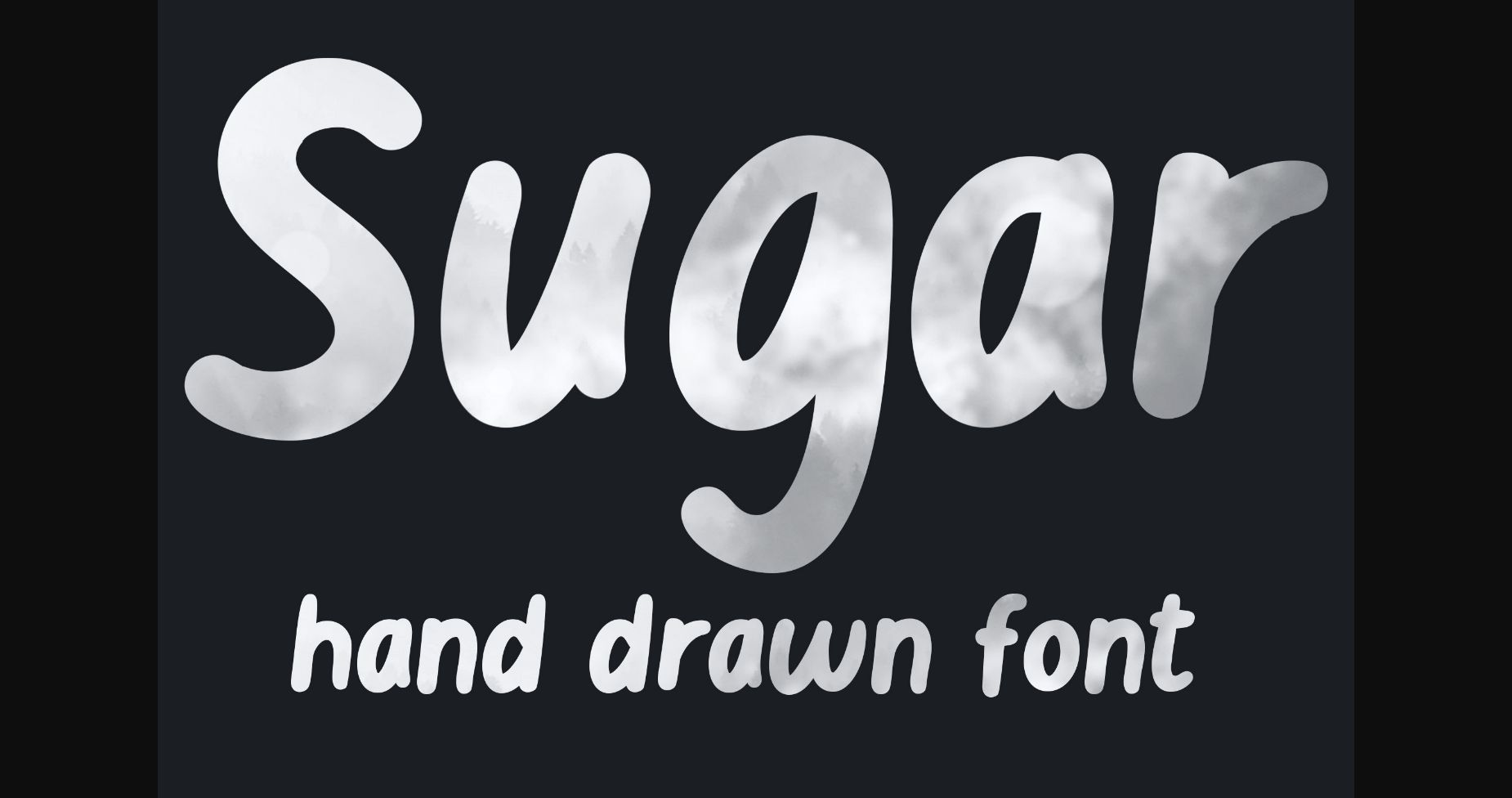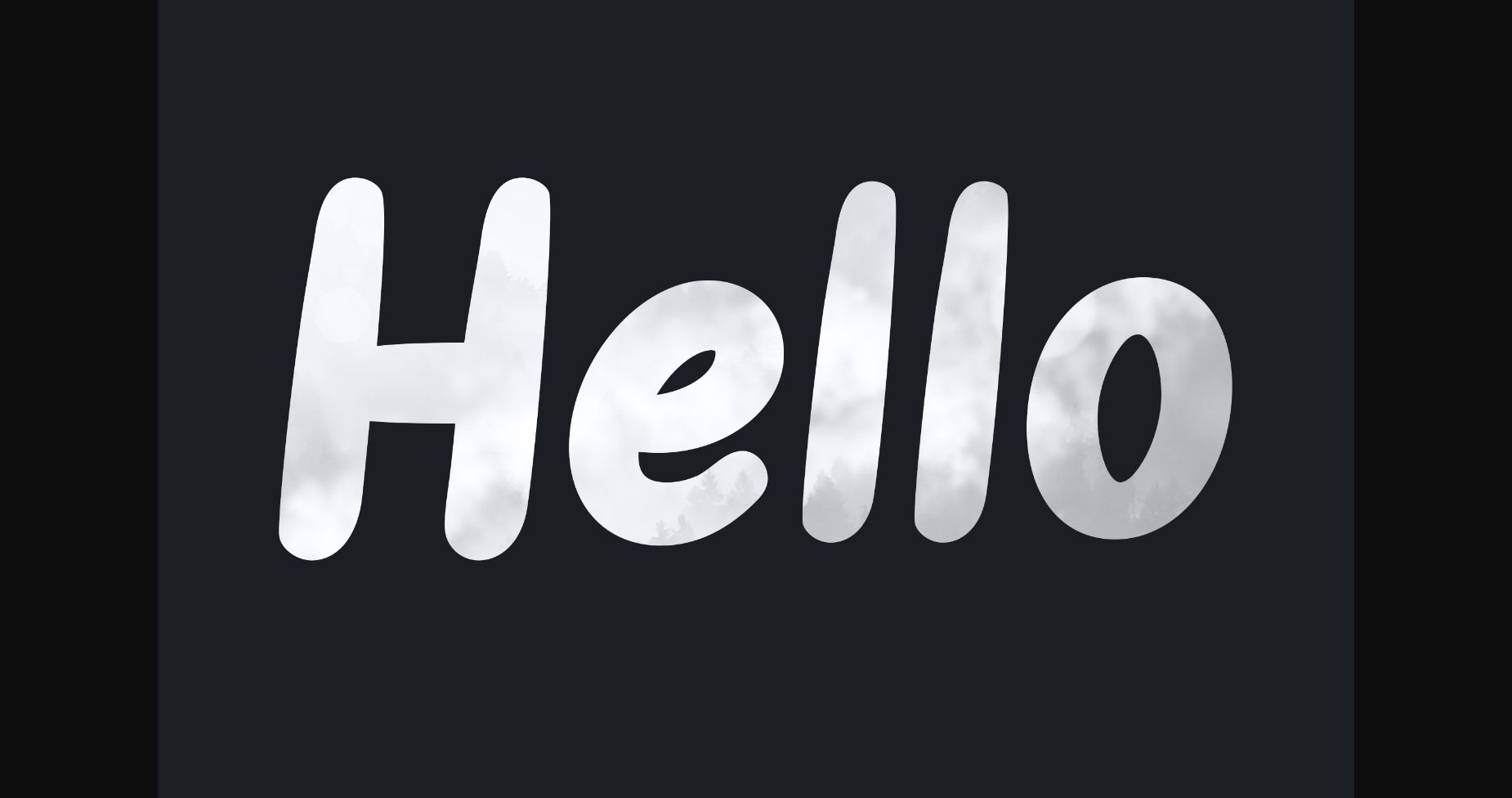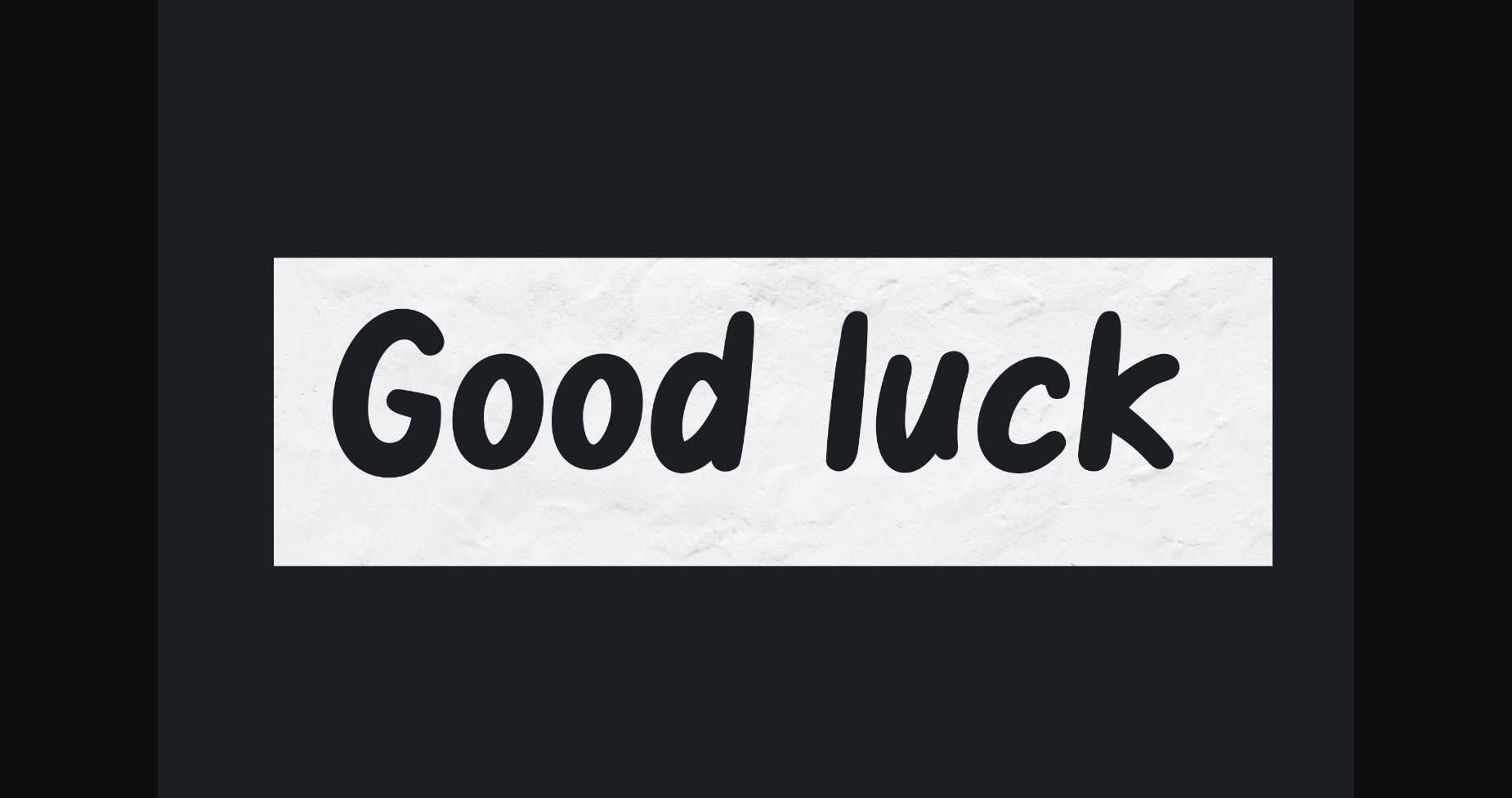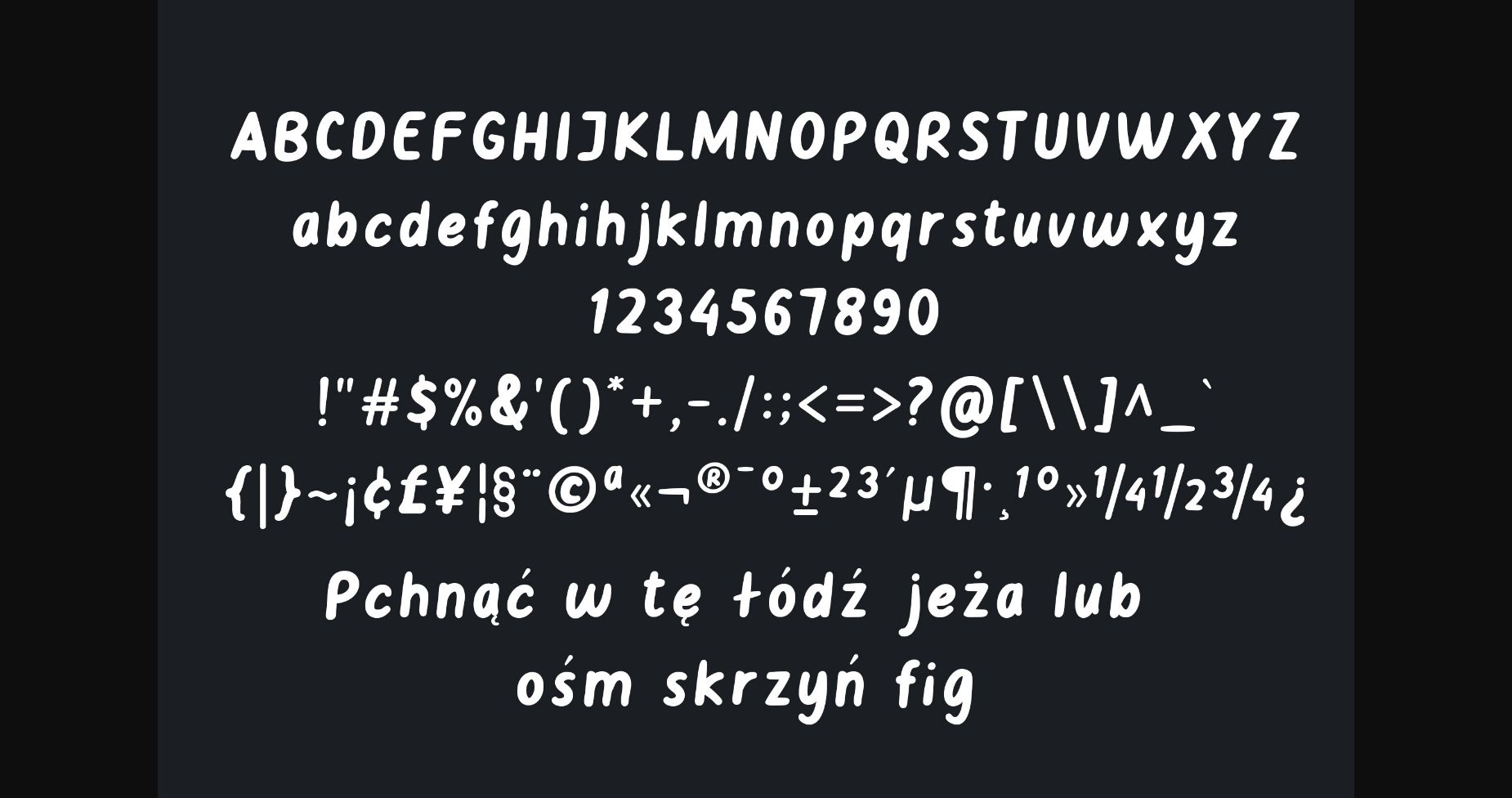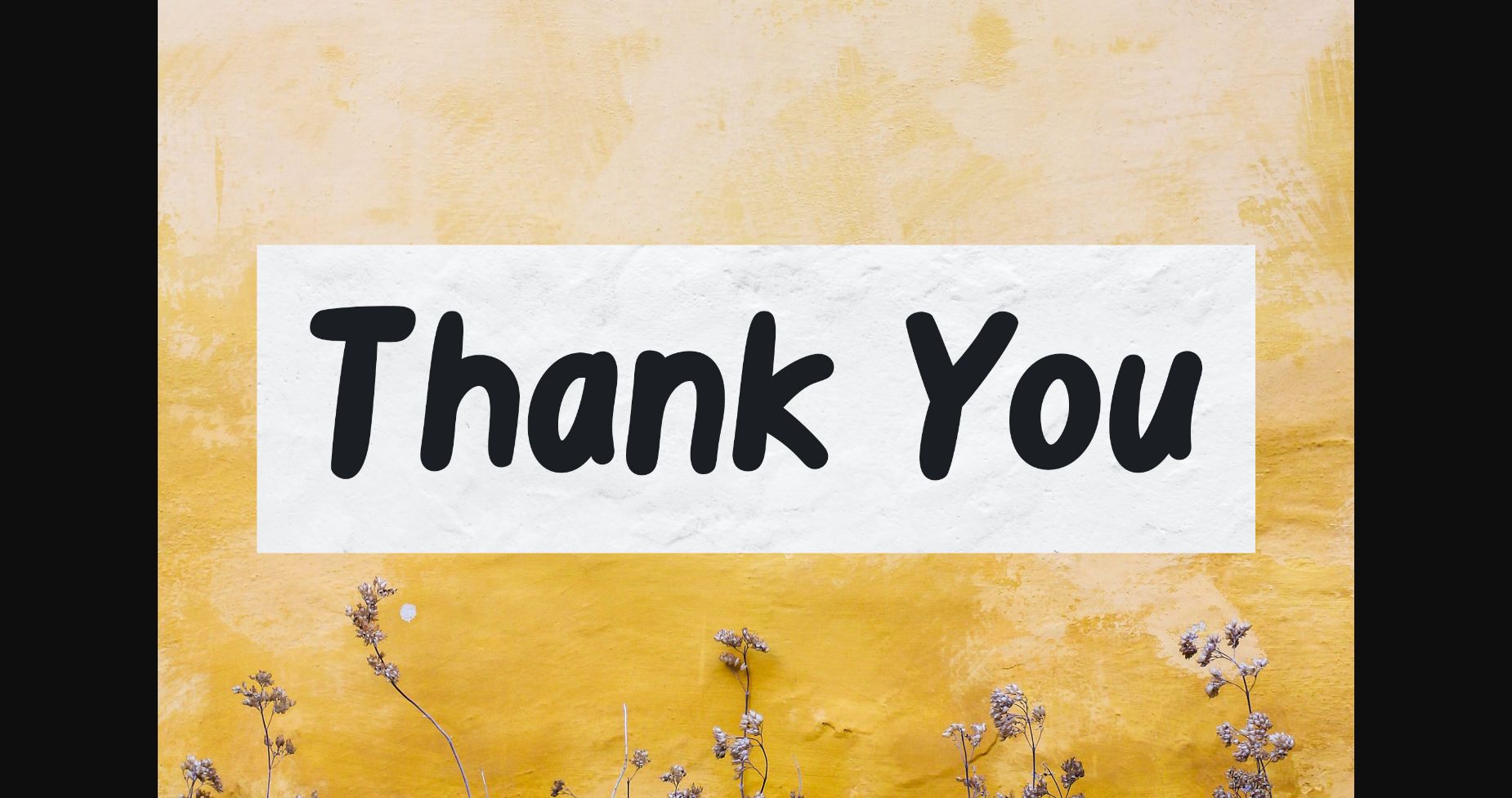
HomeSans Serif FontsSugar Font Sans Serif Fonts Sugar Font FacebookXPinterestWhatsApp 1 of 7 ... Sugar Font Poster 2... Sugar Font Poster 3... Sugar Font Poster 4... Sugar Font Poster 5... Sugar Font Poster 6... Sugar Font Poster 7... About Sugar Font Sugar is a stylish and modern sans serif font, suitable for a wide spectrum of applications. From greeting cards to headlines, branding and packaging, this font will guarantee a joyful touch to each of your creations! DOWNLOAD NOW People also explored Graton Font Tokyo City Font Craft Kit Font Hello Spring Time Font Sorry Dear Font Greating Font Rashida Font Peach Garden – Handwritten Script Font Signature Font 379 0 TagsSugarSugar Font Previous articlePalmier FontNext articleRastefani Font LEAVE A REPLY Cancel reply Comment: Please enter your comment! Name:* Please enter your name here Email:* You have entered an incorrect email address! Please enter your email address here Website: Save my name, email, and website in this browser for the next time I comment. Personal Use Free Stigma Font Personal Use Free Read more about this font Yumail Personal Use Free Read more about this font Little Pixel Personal Use Free Read more about this font Goodline Font Personal Use Free Read more about this font BLOG 5 Fonts That Will Dominate Design Trends in 2026 5 Fonts for 2026 That Will Dominate Design Trends Typography plays a critical role in visual communication, and as we look ahead to 2026, it’s... Transform Your Website: Elevate Your Typography with 7 Best Web Font Generators Fonts That Capture the Spirit of New York City Top 7 Google Fonts Alternatives for Faster and Privacy-Friendly Web Design (2025)